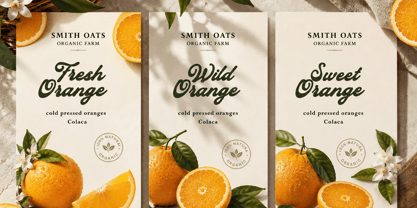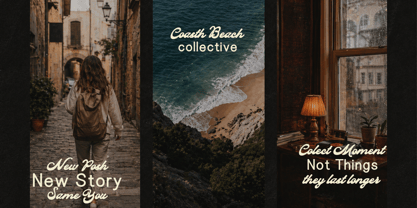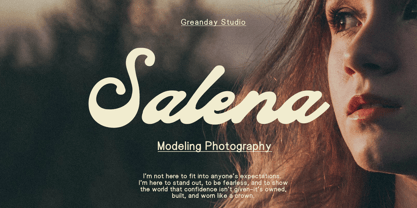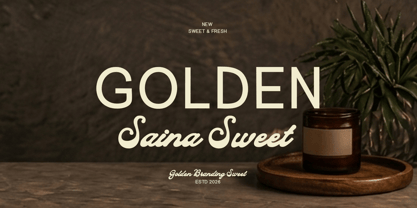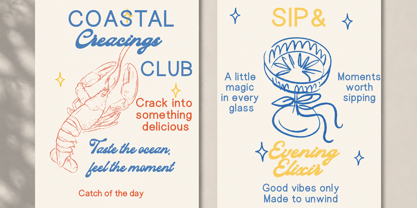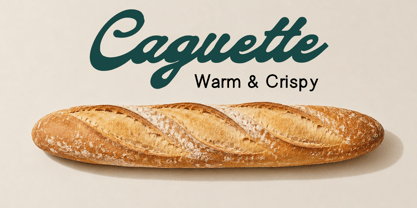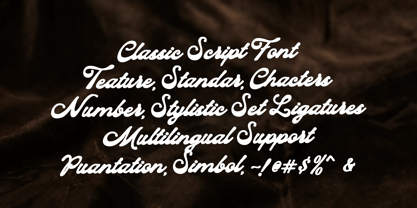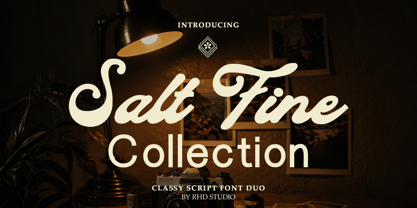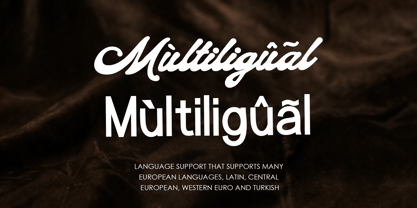
Salt fine Collection
by Rhd Studio
The Salt fine Collection Font Family was designed by Rahmad Rizky and published by Rhd Studio. Salt fine Collection contains 2 styles and family package options. More about this family
Salt Fine Collection is a classy and elegant font duo crafted to bring a luxurious touch to every design. The combination of smooth script and modern sans serif creates a perfect harmony for branding, logos, wedding invitations, packaging, social media, and other premium creative projects.
Elegant & timeless style Easy to mix and match for luxury designs Perfect for branding, fashion, photography, quotes, and lifestyle themes Multilingual support
Make your designs look more exclusive, stylish, and unforgettable with the aesthetic charm of Salt Fine Collection.
Designers: Rahmad Rizky
Foundry: Rhd Studio